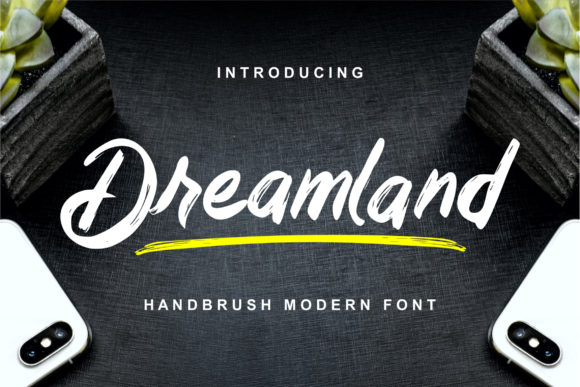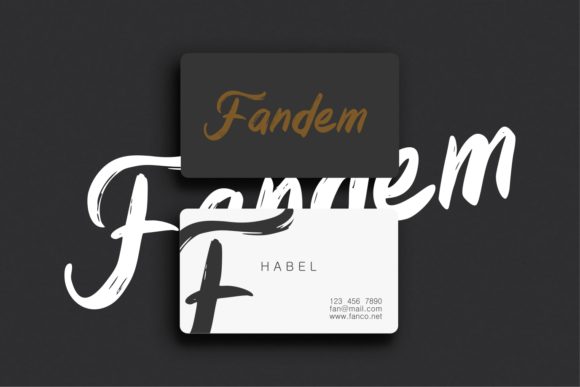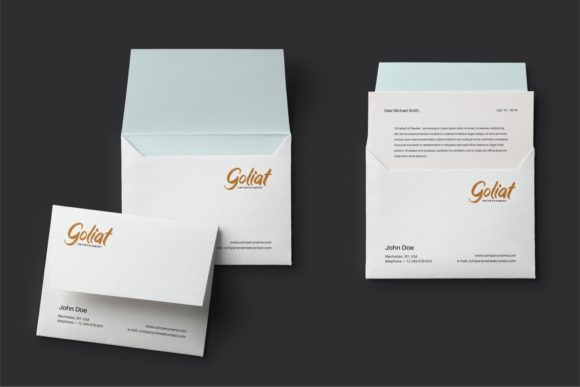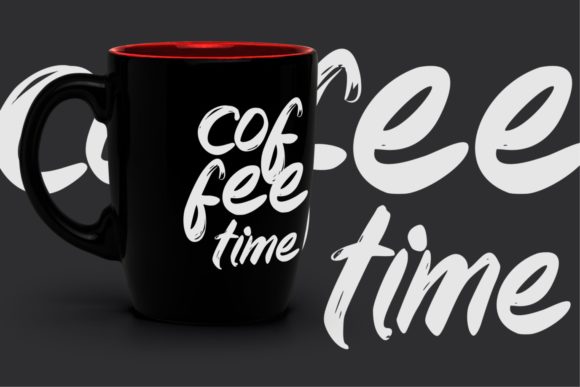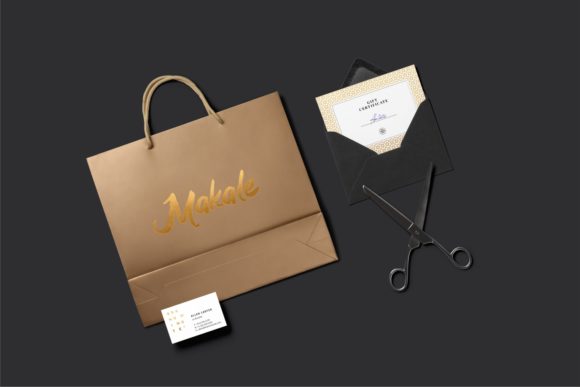
Dreamland Font
About Dreamland Font
Dreamland is an incredibly fun and bold handwritten font with a unique charm. Use it to turn any design project into an eye-catcher!